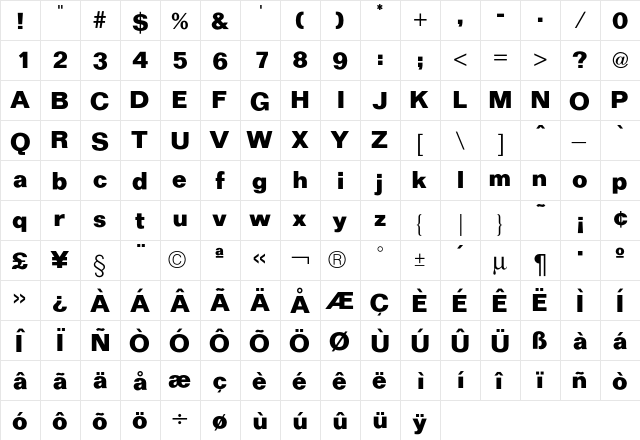
FolioICG Bold
Design Context for FolioICG Typeface
FolioICG takes a measured approach to typography — its balanced proportions and neutral character make it a reliable workhorse for both digital and print work. The heavy weight commands attention and anchors typographic hierarchies.